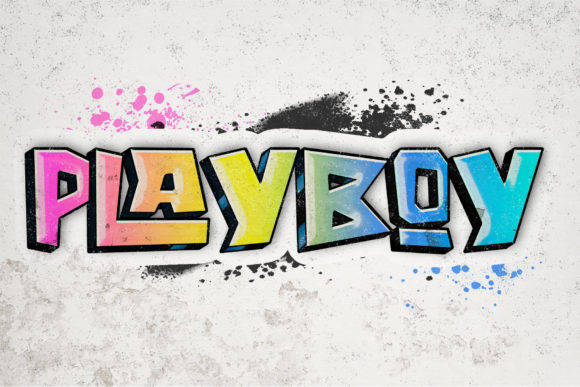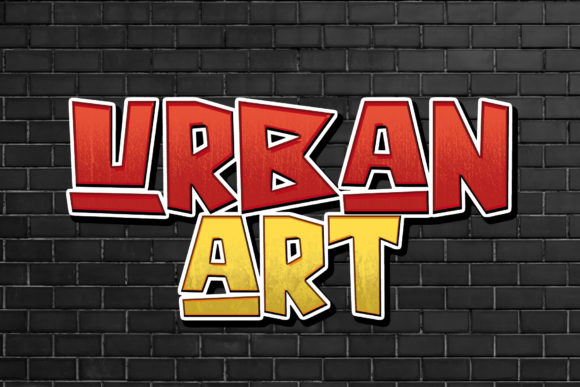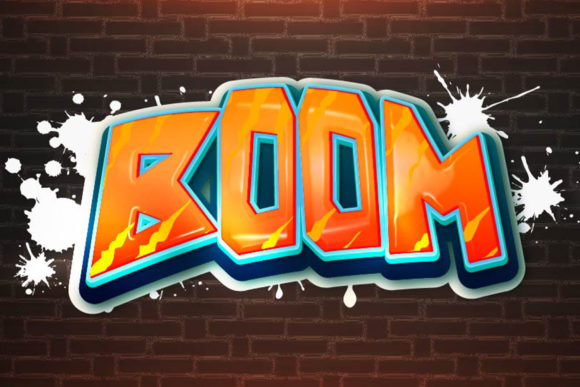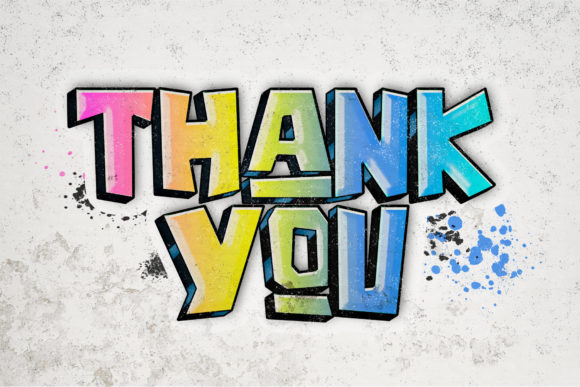
Introduction to Grufy Font
As a designer, have you ever been stuck in a creative rut, yearning for that perfect font to elevate your project from ordinary to extraordinary? I’ve been there too. That’s when I stumbled upon Grufy Font – a game-changing, high-quality display font that’s about to revolutionize your design world.
Imagine unleashing the urban charm of Grufy Font on your next creative project, whether it’s a bold graffiti-style mural or a sleek, modern logo. This free download is a treasure trove of design possibilities, waiting to be explored with its transparent background and versatile style. With Grufy Font, you’ll be able to add a touch of sophistication and edge to any project, making it a valuable resource for designers looking to take their work to the next level.
Key Features of Grufy Font
- High-quality font design suitable for creative projects requiring a unique touch.
- Transparent background, making it ideal for use on any color or image.
- Comes in 4 different font sizes (12, 14, 18, 24pt) to accommodate various design needs.
- Designed at 300 DPI resolution for crisp and clear display on high-resolution screens.
- Unique, hand-drawn style with bold lines and creative flair, setting it apart from other fonts.
Honest Review: Grufy Font
As a designer, I’m always on the lookout for high-quality fonts to enhance my creative projects. Recently, I stumbled upon the Grufy Font, which caught my attention with its unique and quirky style.
One of the standout features of the Grufy Font is its versatility. It can be used for a wide range of designs, from logos to typography-based art. The font is also incredibly easy to use, making it a great addition to any design resource.
Some of the things that work well for the Grufy Font include:
- Its playful and creative vibe, perfect for adding a touch of whimsy to a design project.
- Its high-quality design, which ensures that it looks great even at larger sizes.
- Its transparent background, making it easy to customize and use in a variety of design contexts.
However, there are some limitations to keep in mind:
Overall, I think the Grufy Font is a great addition to any designer’s toolkit. Its unique style and high-quality design make it a great choice for creative projects, and its transparent background makes it easy to use in a variety of contexts.
Tips for Getting the Most Out of Grufy Font
Use Grufy Font in conjunction with other design resources, such as images and shapes, to create a unique and eye-catching design. Experiment with different font sizes and colors to add depth and interest to your design. You can also use Grufy Font to create a consistent brand identity across your marketing materials.
Grufy Font is ideal for use in a variety of creative projects, including logos, brochures, posters, and social media graphics. It is also a great choice for use in presentations and documents, where a high quality and unique font can help to make your content stand out.